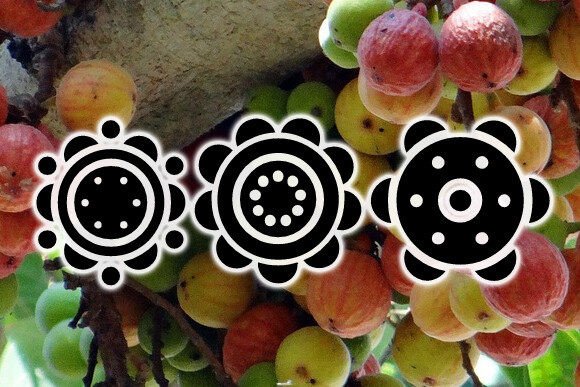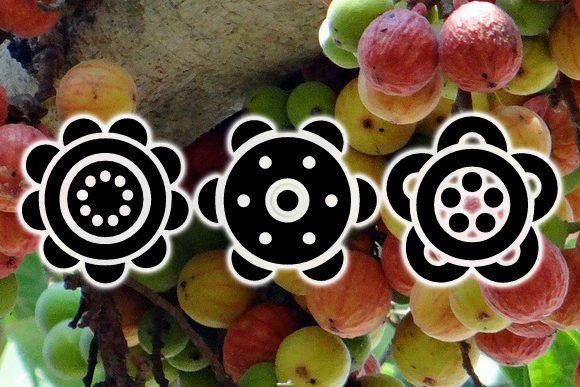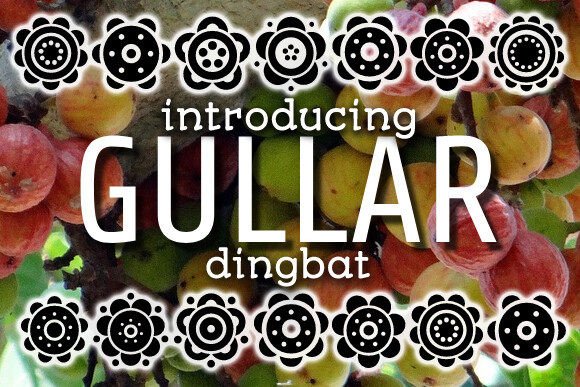
Gullar Font: The Awesome Dingbat for Your Design Needs
Are you a designer or crafter looking for a unique and versatile dingbat to elevate your designs? Look no further than Gullar Font! This amazing dingbat is perfect for adding a touch of personality to your posters, flyers, t-shirts, and more. In this article, we’ll dive into the world of Gullar Font and explore its features, benefits, and uses.
What is Gullar Font?
Gullar Font is a dingbat font that is designed to be used in a variety of creative projects. A dingbat is a type of font that consists of symbols, icons, and other graphical elements rather than letters and numbers. Gullar Font is a collection of unique and quirky symbols that can add a touch of whimsy and personality to your designs.
Why is Gullar Font Awesome?
So, what makes Gullar Font so awesome? Here are just a few reasons why designers and crafters love this dingbat:
- Versatility: Gullar Font can be used in a wide range of design projects, from posters and flyers to t-shirts and stickers.
- Unique Style: The symbols in Gullar Font have a distinctive and quirky style that can add a touch of personality to your designs.
- Scalability: The symbols in Gullar Font can be scaled up or down without losing any quality, making them perfect for use in a variety of projects.
Design Ideas Using Gullar Font
- Posters: Use Gullar Font to create eye-catching posters for events, promotions, or announcements.
- Flyers: Add a touch of personality to your flyers with Gullar Font.
- T-Shirts: Use Gullar Font to create unique and quirky designs for t-shirts.
- Stickers: Create custom stickers using Gullar Font.
Here are a few tips and tricks to help you get the most out of Gullar Font:
- Experiment with Colors: Try out different colors and combinations to add depth and interest to your designs.
- Mix and Match: Combine Gullar Font with other fonts and design elements to create unique and interesting designs.
- Play with Size: Experiment with different sizes to add visual interest to your designs.
Gullar Font is an awesome dingbat that can add a touch of personality to your designs. With its versatility, unique style, and ease of use, it’s perfect for designers and crafters of all levels. Whether you’re creating posters, flyers, t-shirts, or stickers, Gullar Font is sure to fit the bill. So why wait? Download Gullar Font today and start creating amazing designs!